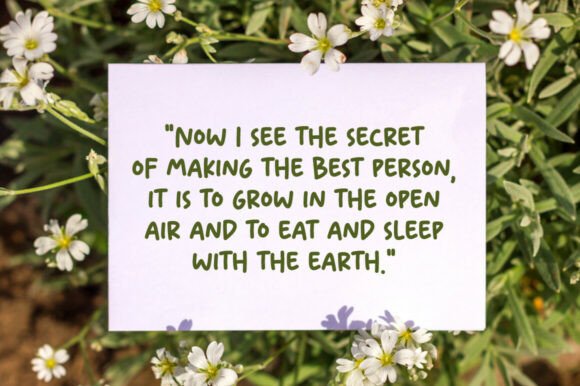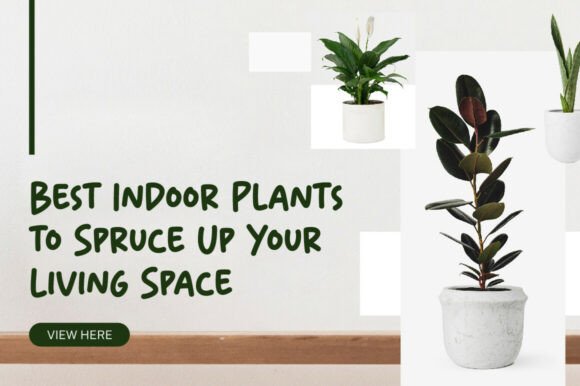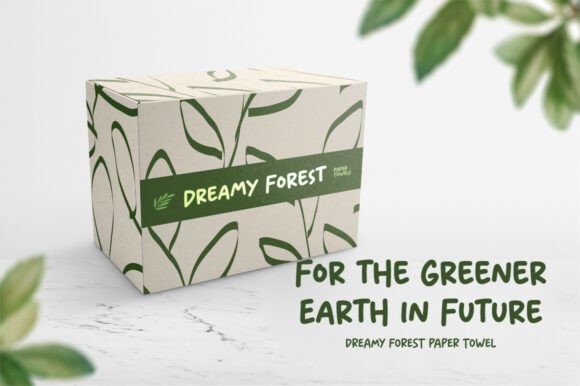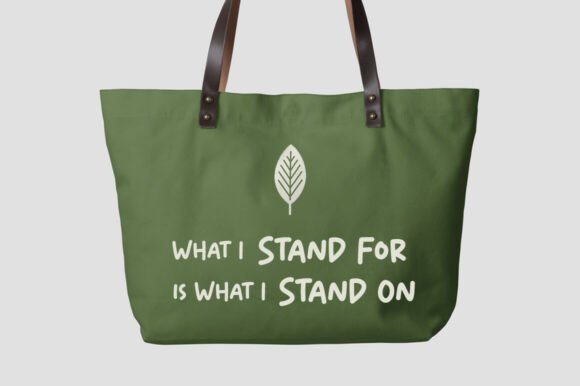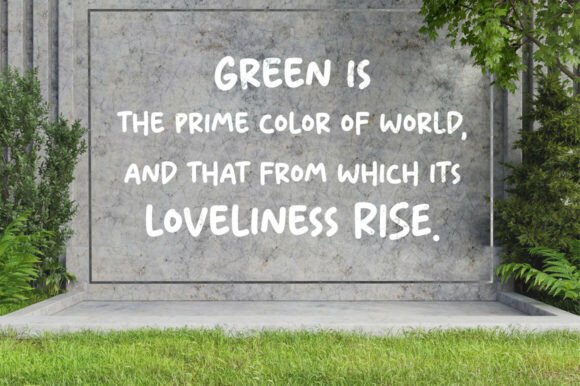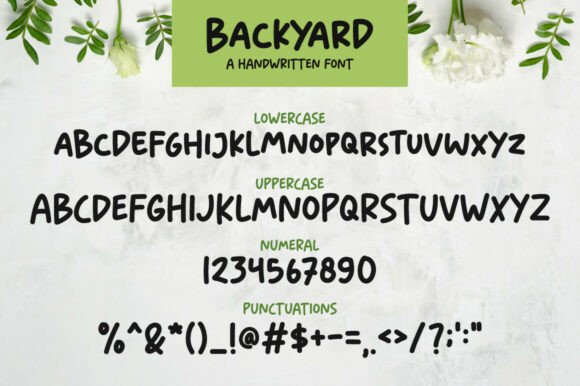
Introducing Backyard Font: The Perfect Addition to Your Design Collection
Are you tired of using the same old fonts in your designs? Look no further than Backyard Font, a beautiful, well-balanced, and graceful handwritten font that’s sure to add a touch of personality to your projects. With its funky, easy-going vibe, Backyard Font is perfect for designers and crafters who want to add a laid-back approach to their work.
The Characteristics of Backyard Font
Backyard Font is a unique and stylish font that’s defined by its handwritten feel. It’s a beautifully crafted font that’s both elegant and playful, making it perfect for a wide range of design projects. The font features:
- Handwritten feel: Backyard Font has a natural, handwritten feel that’s perfect for adding a personal touch to your designs.
- Well-balanced: The font is carefully crafted to ensure that it’s well-balanced and visually appealing.
- Graceful lines: The lines in Backyard Font are smooth and flowing, giving the font a sense of elegance and sophistication.
- Funky vibe: Despite its elegance, Backyard Font has a funky, easy-going vibe that’s perfect for designers who want to add a touch of personality to their work.
Uses for Backyard Font
Backyard Font is a versatile font that can be used for a wide range of design projects, including:
- Branding and logos: Backyard Font is perfect for creating unique and memorable logos that reflect your brand’s personality.
- Invitations and greeting cards: The font’s handwritten feel makes it perfect for creating invitations and greeting cards that feel personal and special.
- Social media graphics: Backyard Font is a great choice for social media graphics, including Facebook posts, Instagram stories, and Twitter headers.
- Packaging and labels: The font’s elegant lines and funky vibe make it perfect for packaging and labels that need to stand out.
Why Choose Backyard Font?
There are many fonts to choose from, but Backyard Font stands out from the crowd. Here are just a few reasons why:
- Unique style: Backyard Font has a unique style that’s both elegant and playful.
- Easy to read: Despite its handwritten feel, Backyard Font is easy to read and understand.
- Versatile: The font can be used for a wide range of design projects, from branding and logos to social media graphics and packaging.
- High-quality: Backyard Font is a high-quality font that’s carefully crafted to ensure that it’s visually appealing and effective.
Tips for Using Backyard Font
Here are a few tips for getting the most out of Backyard Font:
- Use it sparingly: Backyard Font is a statement font, so use it sparingly to add emphasis and personality to your designs.
- Experiment with colors: The font looks great in a wide range of colors, so experiment to find the perfect combination for your design.
- Pair it with other fonts: Backyard Font pairs well with other fonts, so don’t be afraid to experiment with different combinations.
- Have fun: The most important thing is to have fun and be creative with Backyard Font!